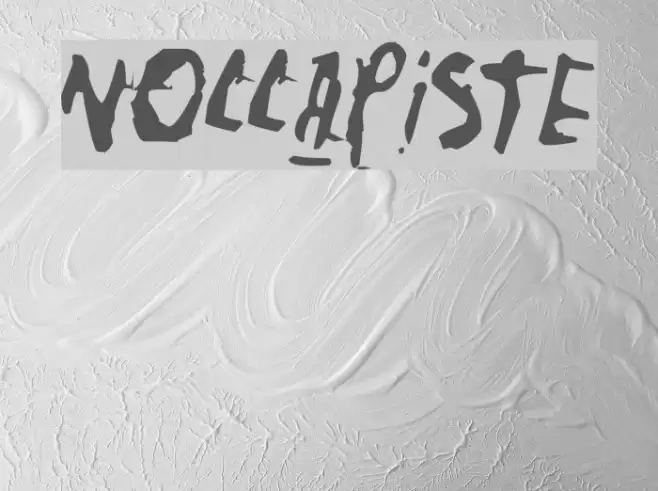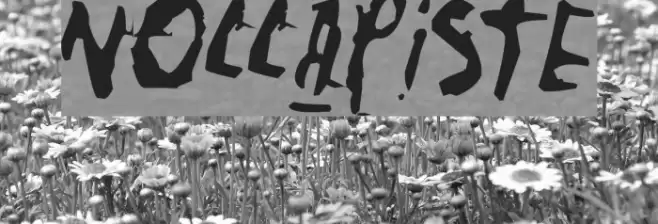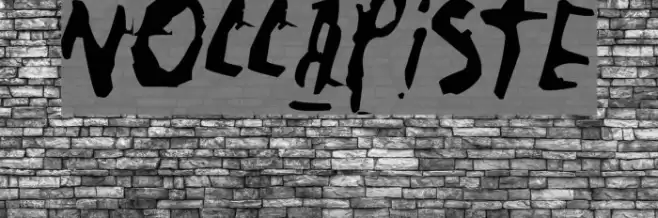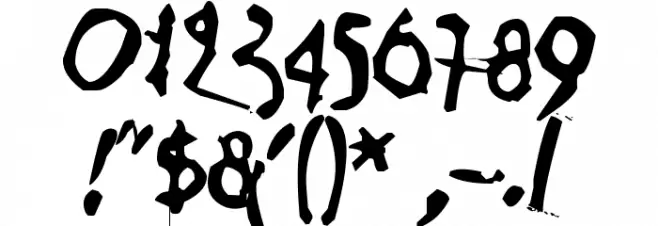
Nollapiste Font
Nollapiste Description
This font features a bold and expressive style with a hand-drawn appearance. The characters are irregular and dynamic, giving a sense of movement and energy. The strokes are thick and uneven, with a rough texture that adds to its raw and artistic feel. This font is highly decorative and stands out with its unique, almost chaotic design. It captures attention with its dramatic flair, making it suitable for creative and unconventional projects. The uppercase and lowercase letters maintain a consistent style, while the numbers and special characters follow the same expressive theme.
A bold, hand-drawn font with an expressive and dynamic style from Handwritten fonts.
- Proposed Projects: Ideal for artistic projects, album covers, posters, and any design requiring a bold, creative touch.